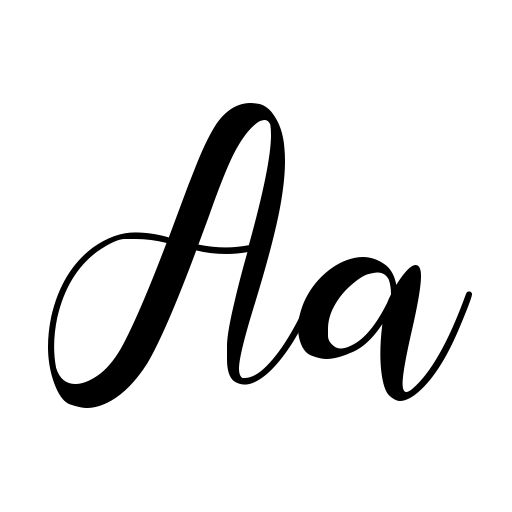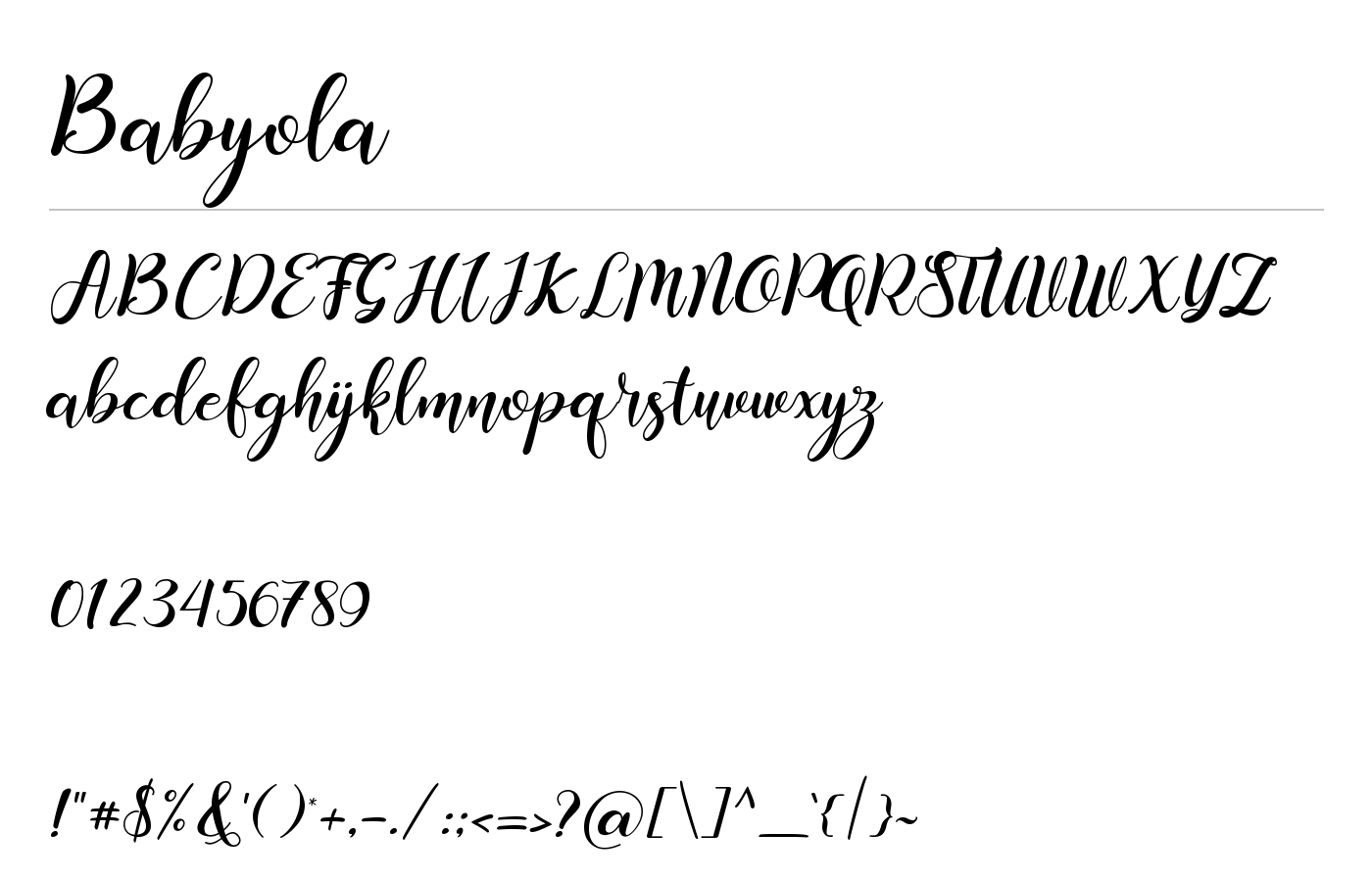
Babyola is an elegant script font with flowing, connected letterforms and a refined, calligraphic style. It features medium contrast strokes, smooth curves, and distinctive swashes that give it a graceful and sophisticated feel, making it perfect for invitations, branding, or any design that seeks a stylish and personal touch. This font works especially well in decorative headlines or logos where a luxurious yet approachable look is desired.
Babyola Font
About Babyola Font
| Font family | Babyola Font |
| Designer | tonimous 2020 |